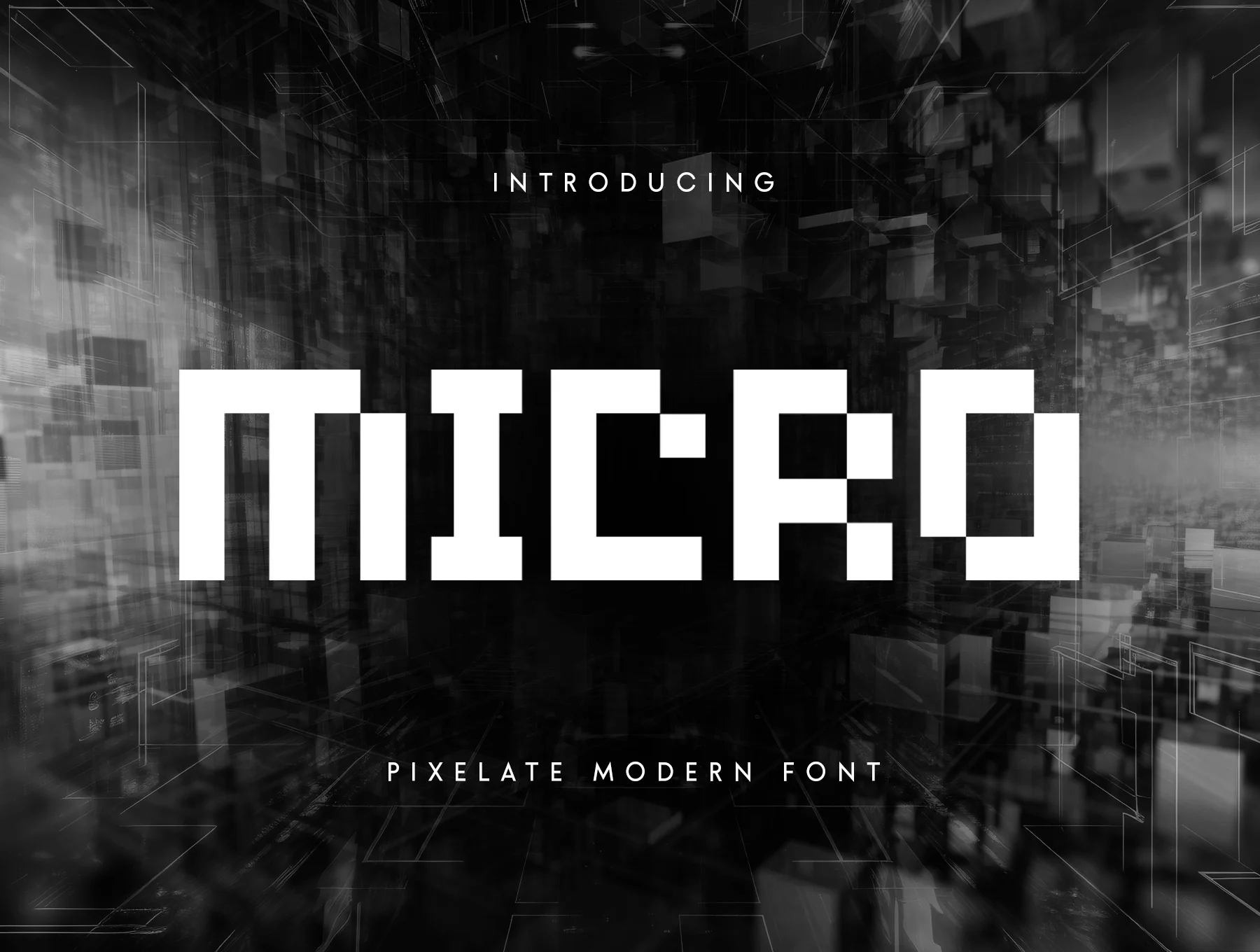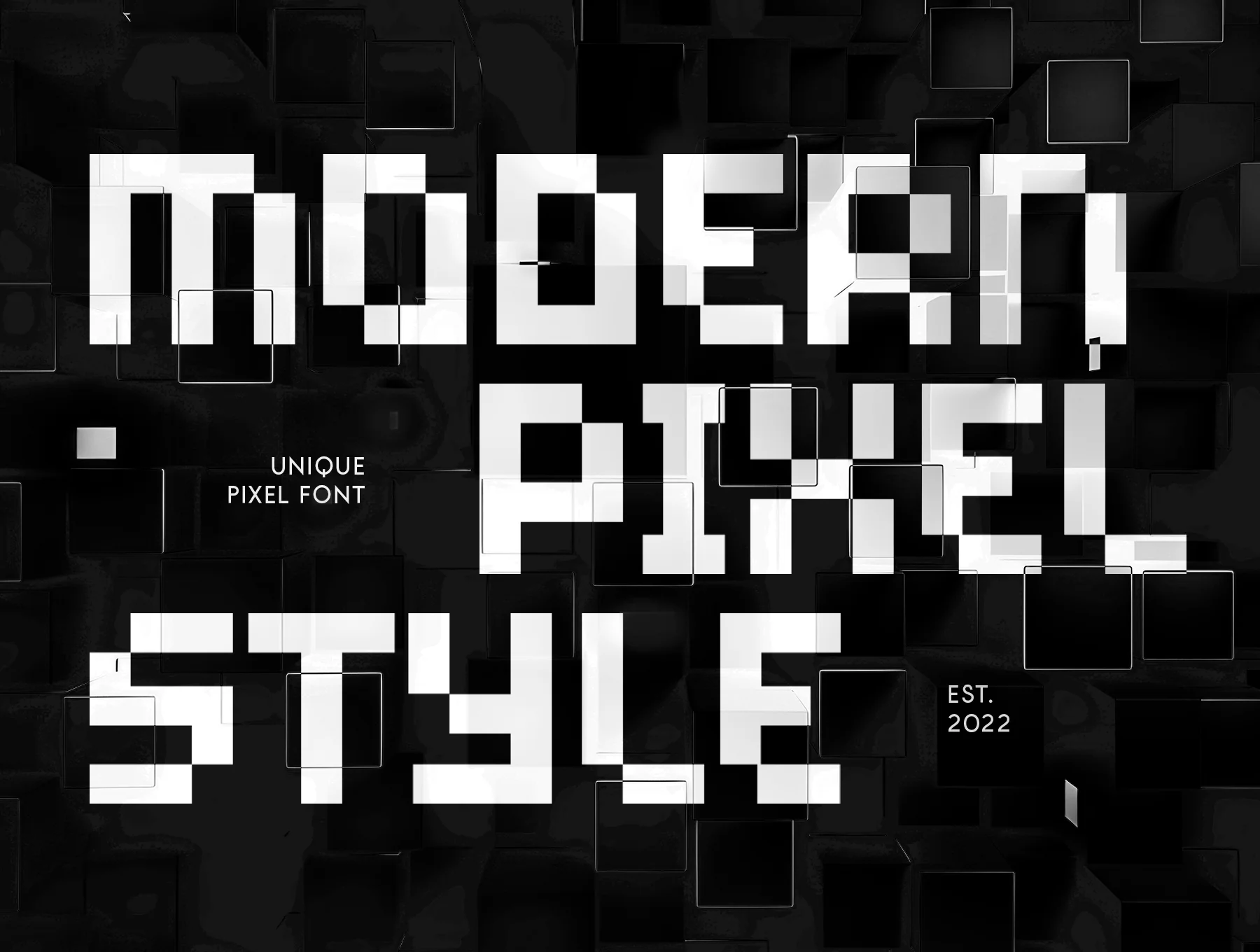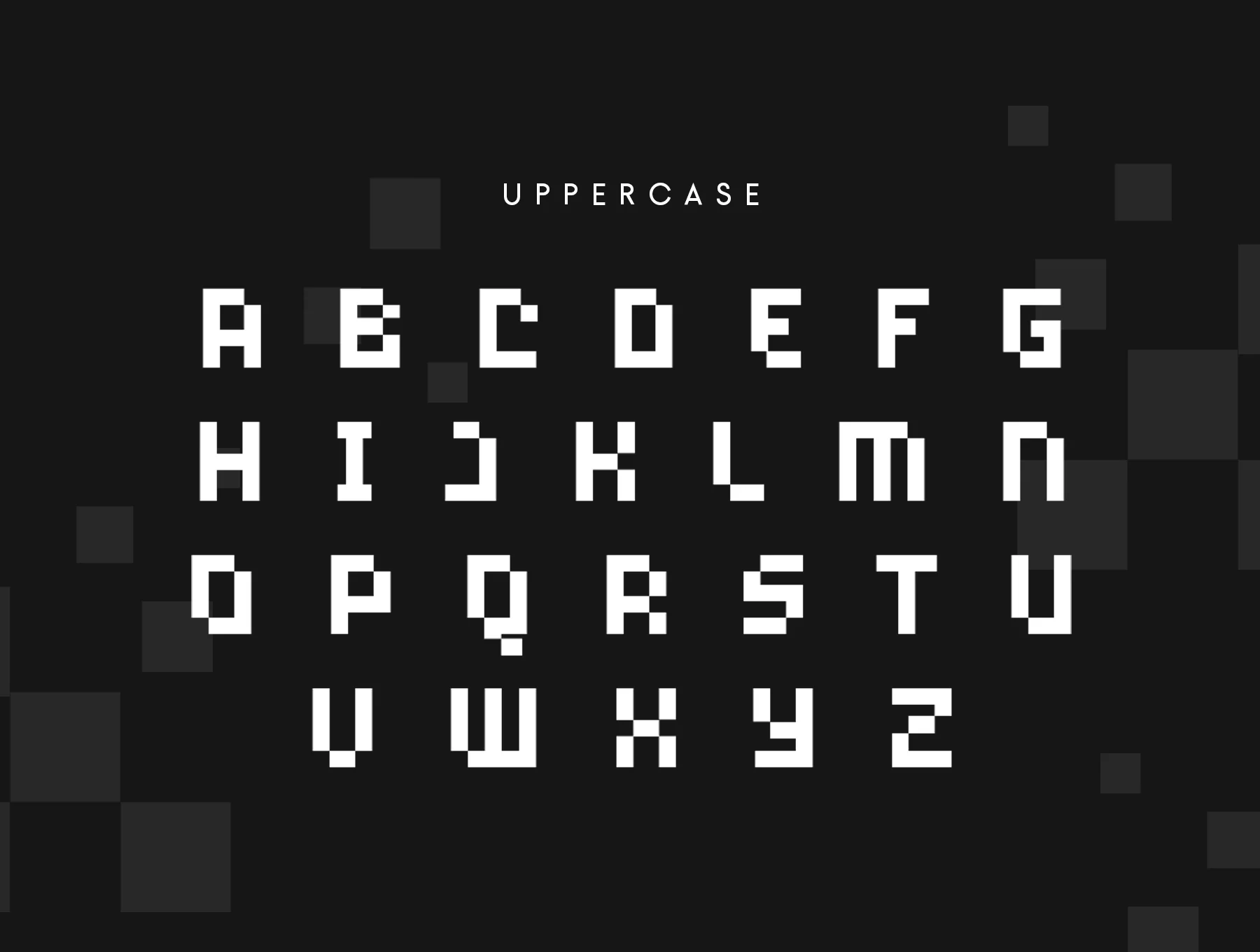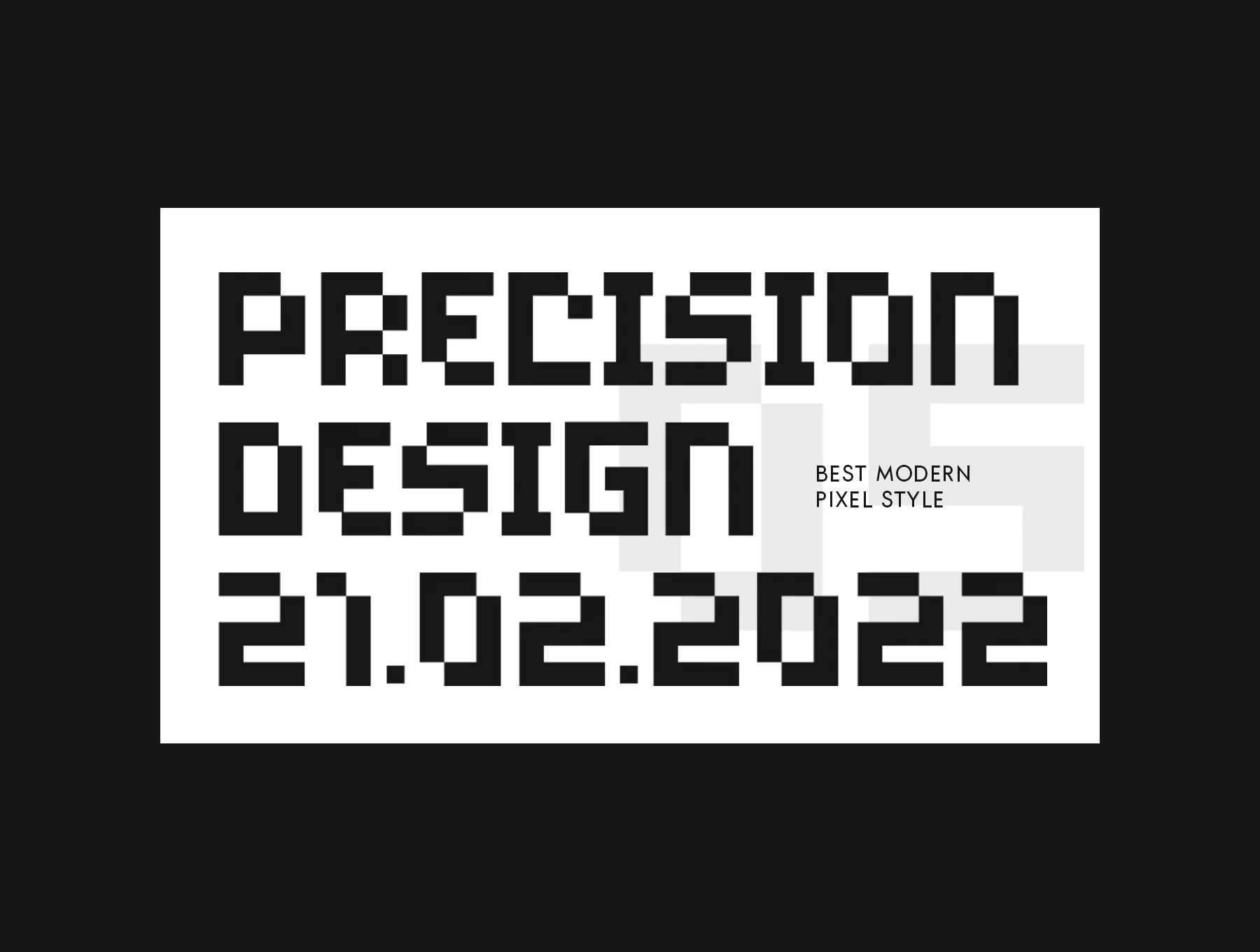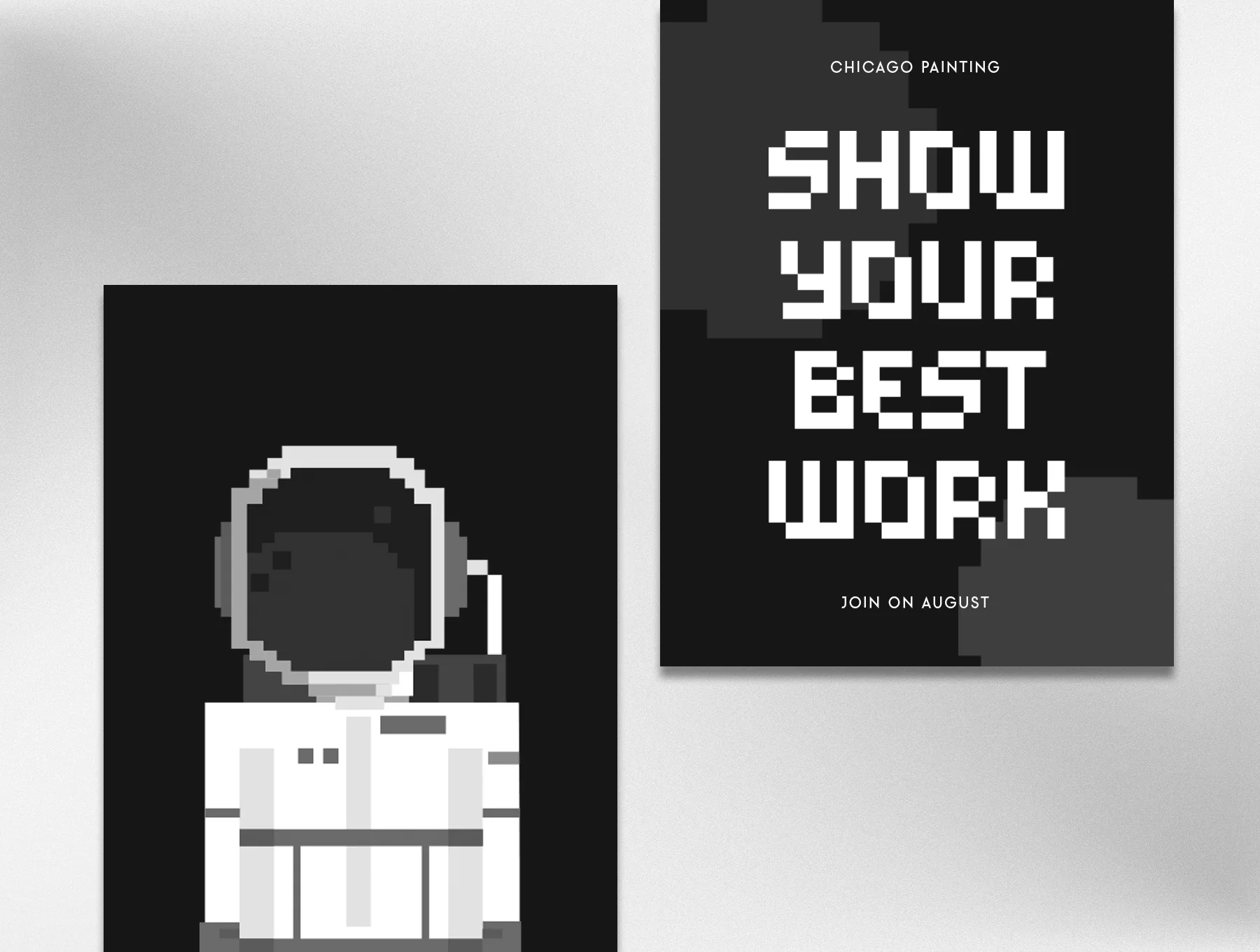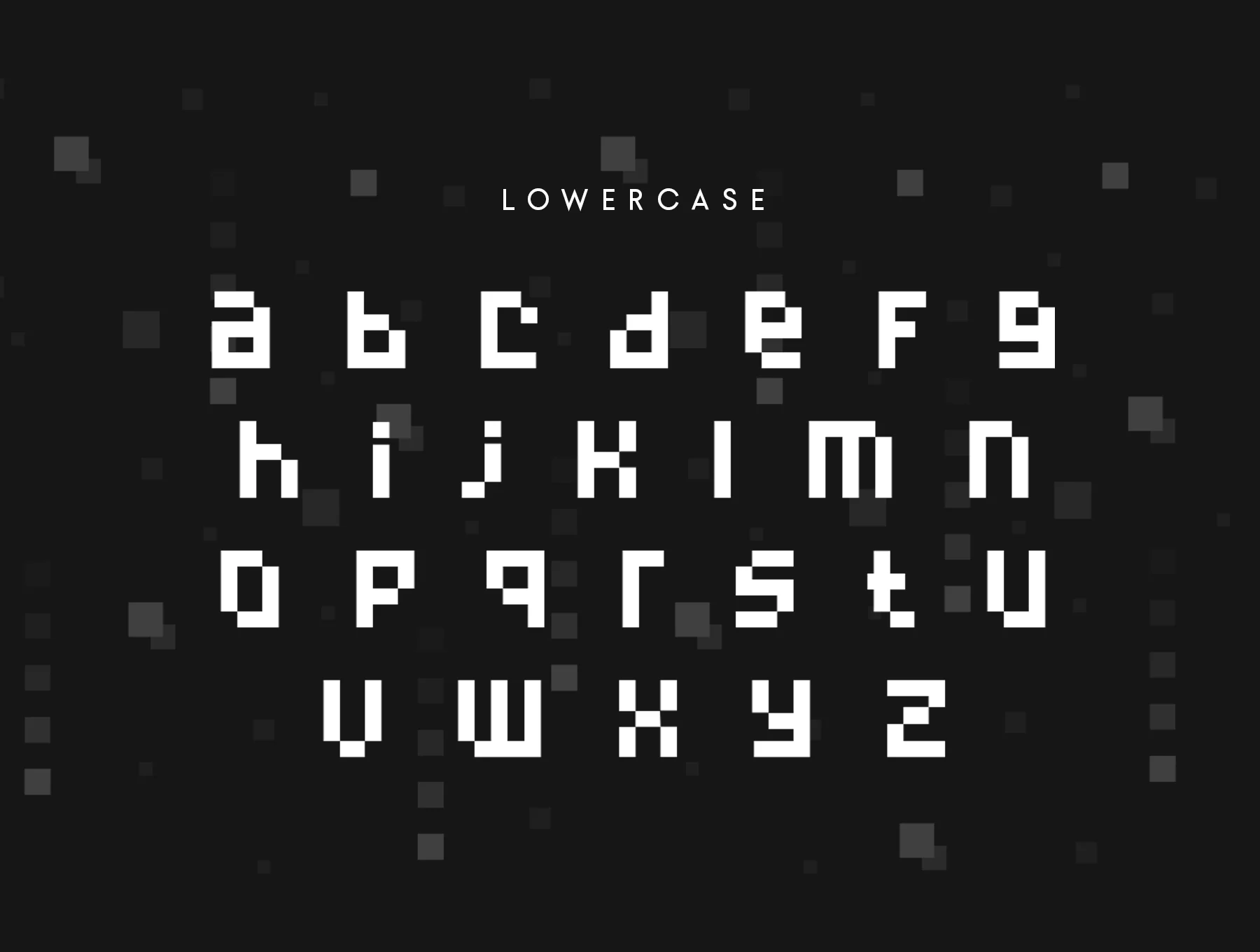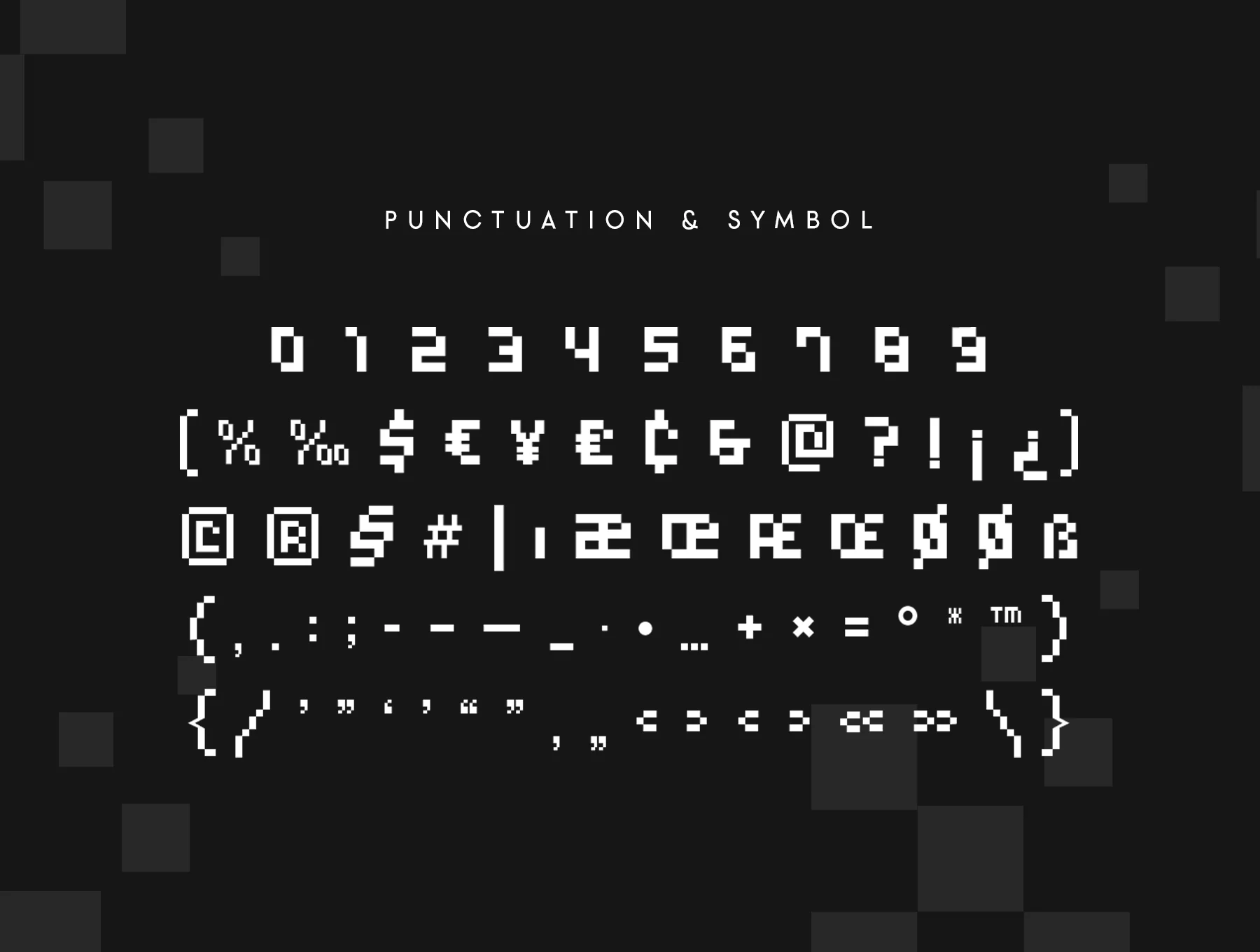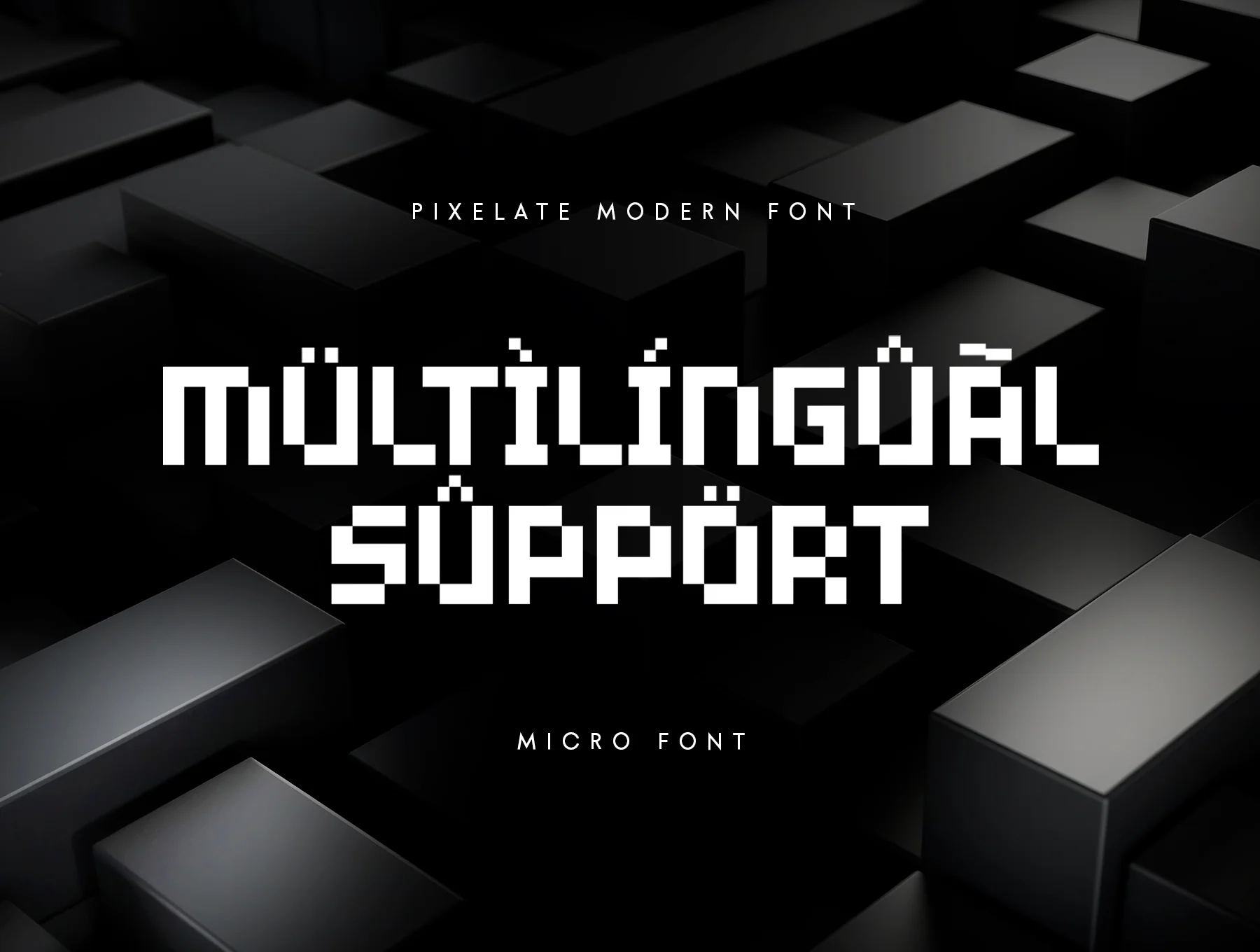
Micro Font
Micro Pixelate Contemporary Typeface
Modern Pixelate is a font made for NFT artwork, pixel themes, games, and poster designs, helping your visuals feel more distinctive. It works beautifully for stylish headlines and bold layouts. The Micro font is crafted with a retro look, NFT appeal, and a unique character, perfect for projects that clearly express your main idea.